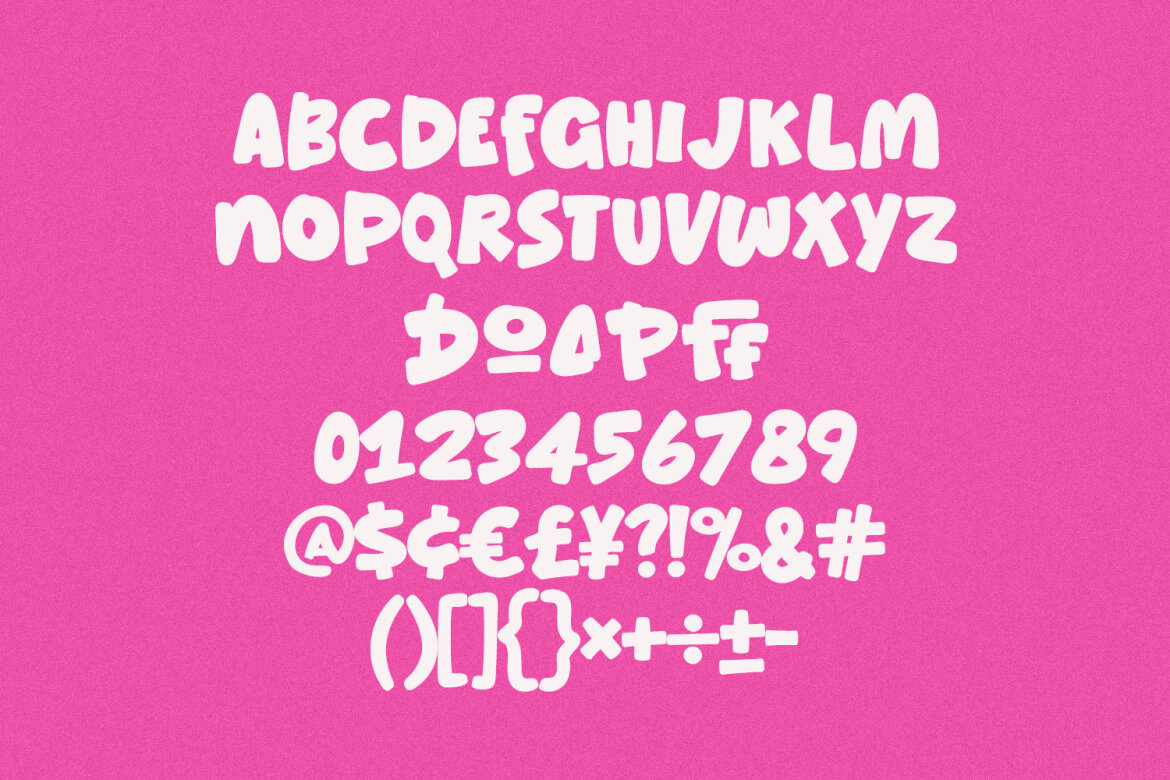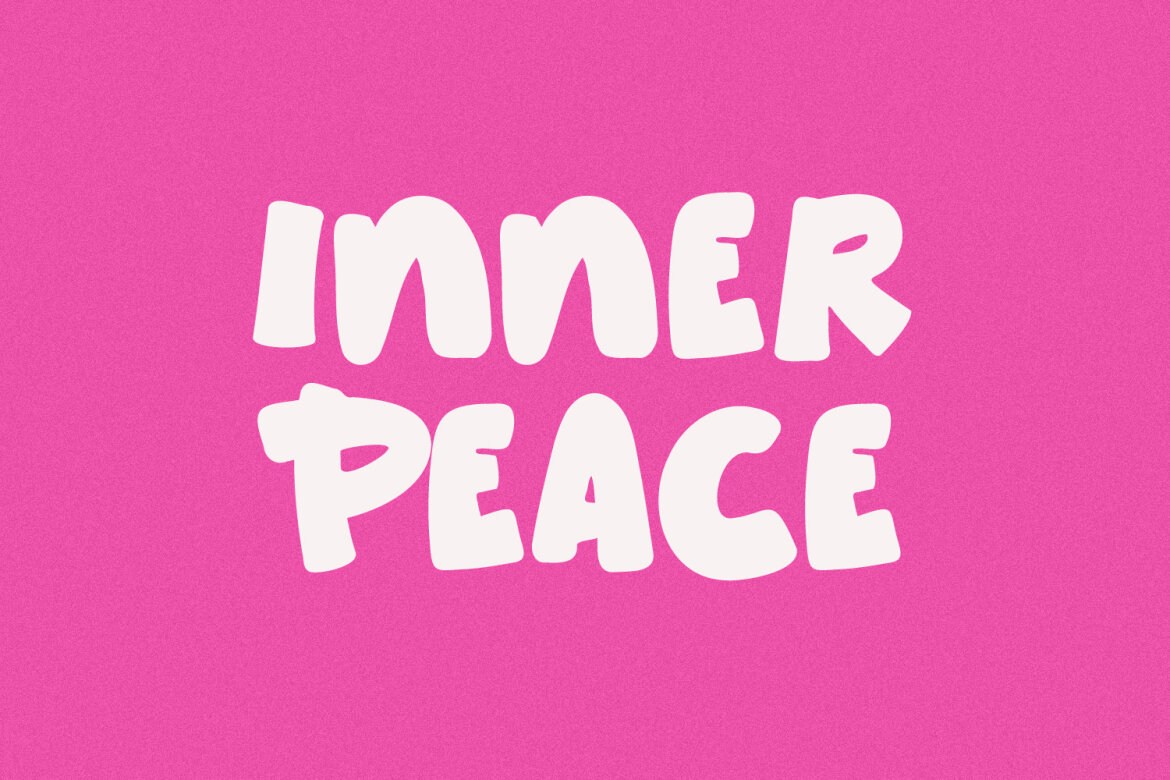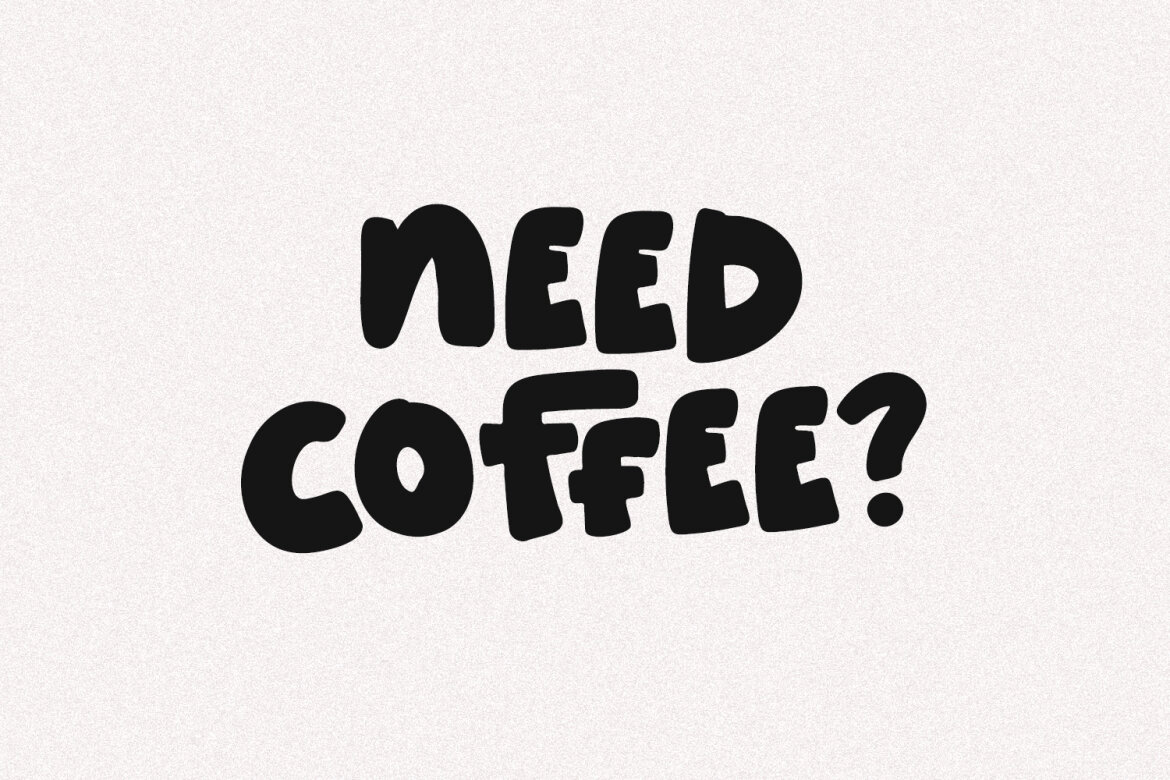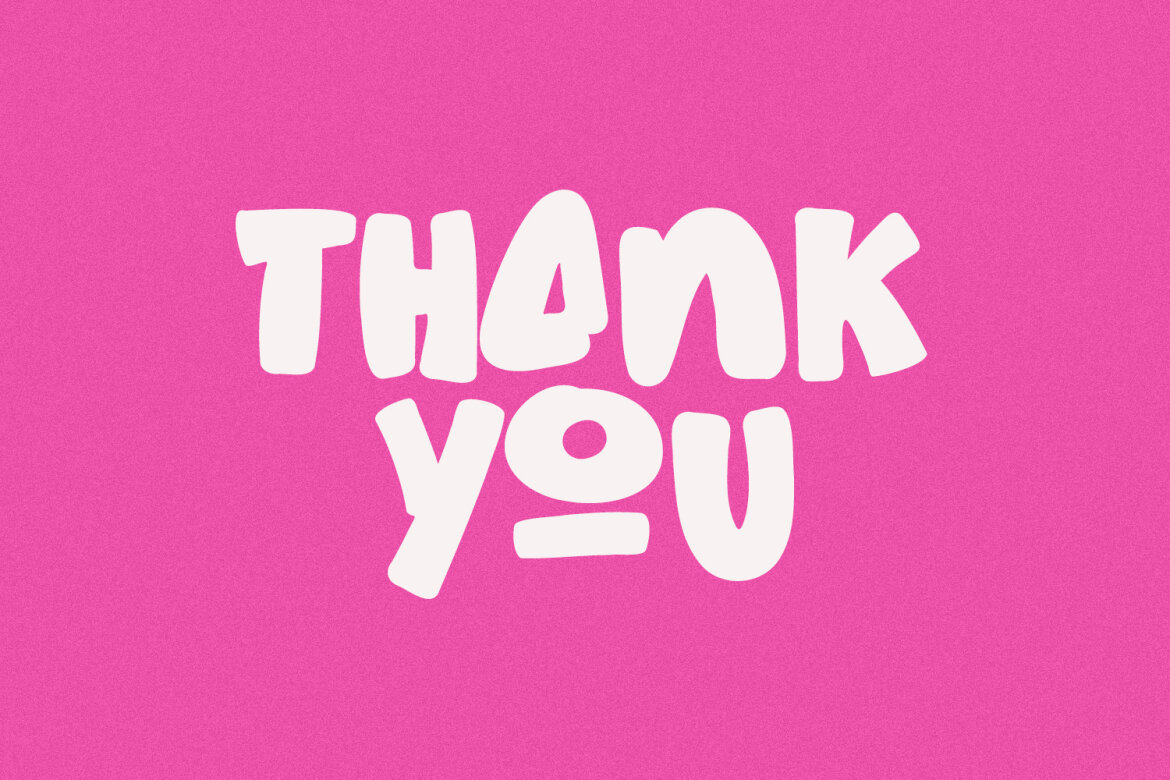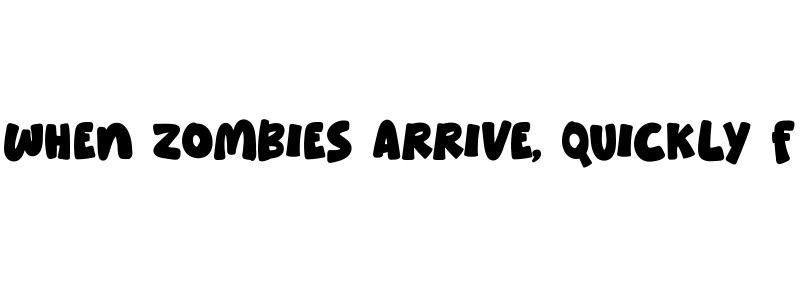
Chiffo Drios Display FREE Font
Chiffo Drios
Chiffo Drios is a playful and chunky display font designed to inject an immediate dose of joy and personality into your creative projects. With its bold, rounded shapes and slightly whimsical charm, this font is perfect for making a strong, memorable statement.
Bold & Chunky Design, instantly grabs attention and creates a friendly, approachable feel. Playful Aesthetic, ideal for projects targeting a youthful audience or aiming for a lighthearted, fun vibe. Versatile Use, excellent for branding, packaging, children's books, comics, posters, merchandise, social media graphics, and much more. Full Character Set, includes all uppercase letters, numbers, and a comprehensive range of punctuation and symbols, as demonstrated in the preview images.
• Numbers and punctuation
• Multilingual Support
• Simple Ligature and Alternate